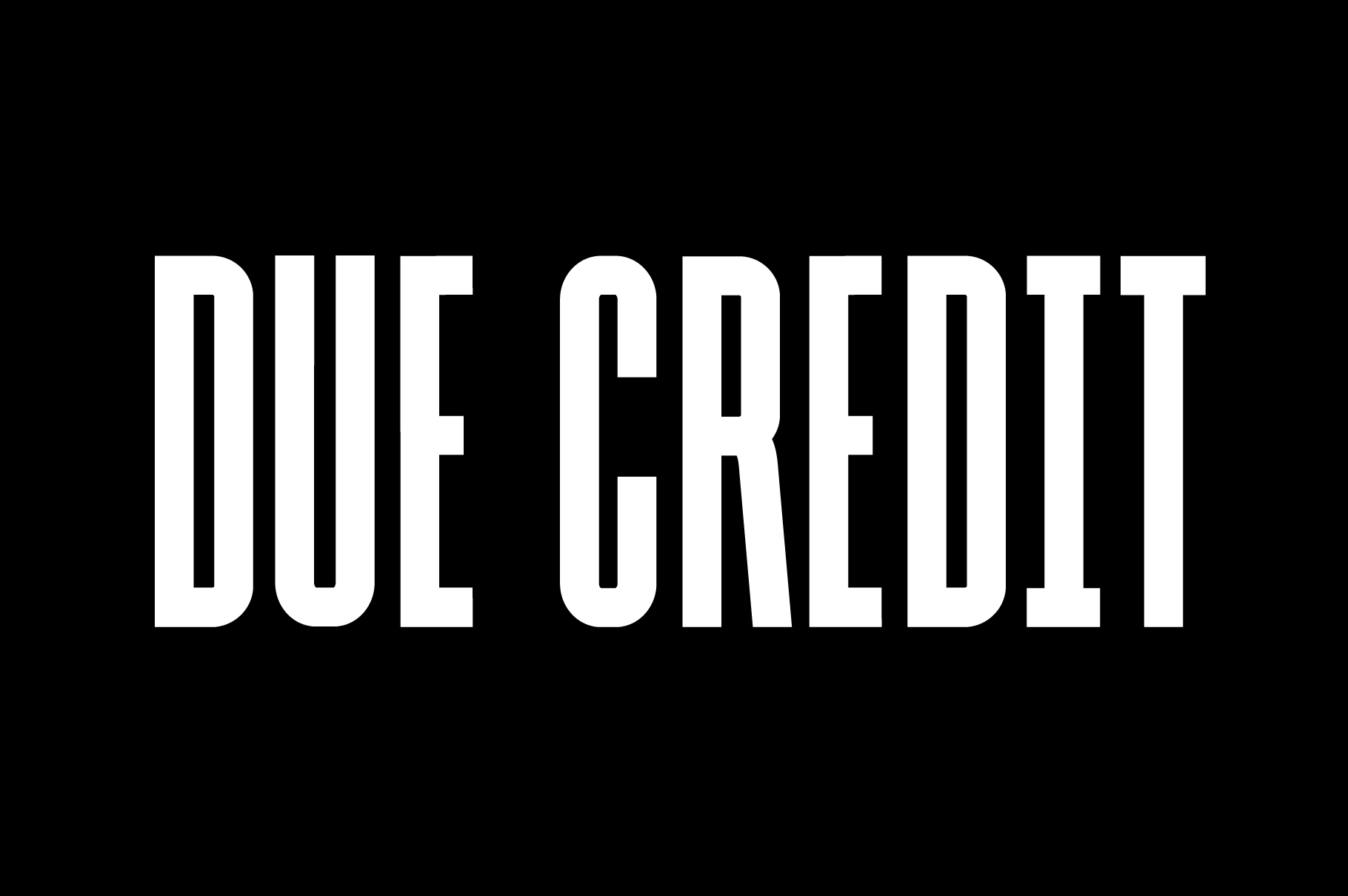
Due Credit | Bold Sans-Serif Movie Font
A versatile display font specially designed to Create clear and impactful movie titles and poster campaigns. Provided in multiple weights and styles to suit all sizes.
A versatile display font for film posters, trailers and titles.
Due Credit is a compressed display font specifically designed for the film and television marketing. A versatile typeface that’s suitable for bold headline titles and small credit blocks with an additional horror inspired extra style.
• Light
• Regular
• Bold
• Extra Bold
• Horror Style